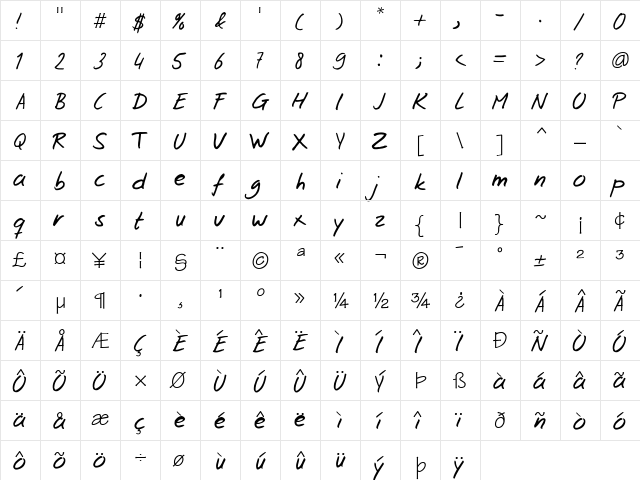
Josschrift Regular
| Designer | Jos Elsendoorn |
Josschrift is a composed and adaptable typeface that performs quietly and consistently across a wide range of design contexts.